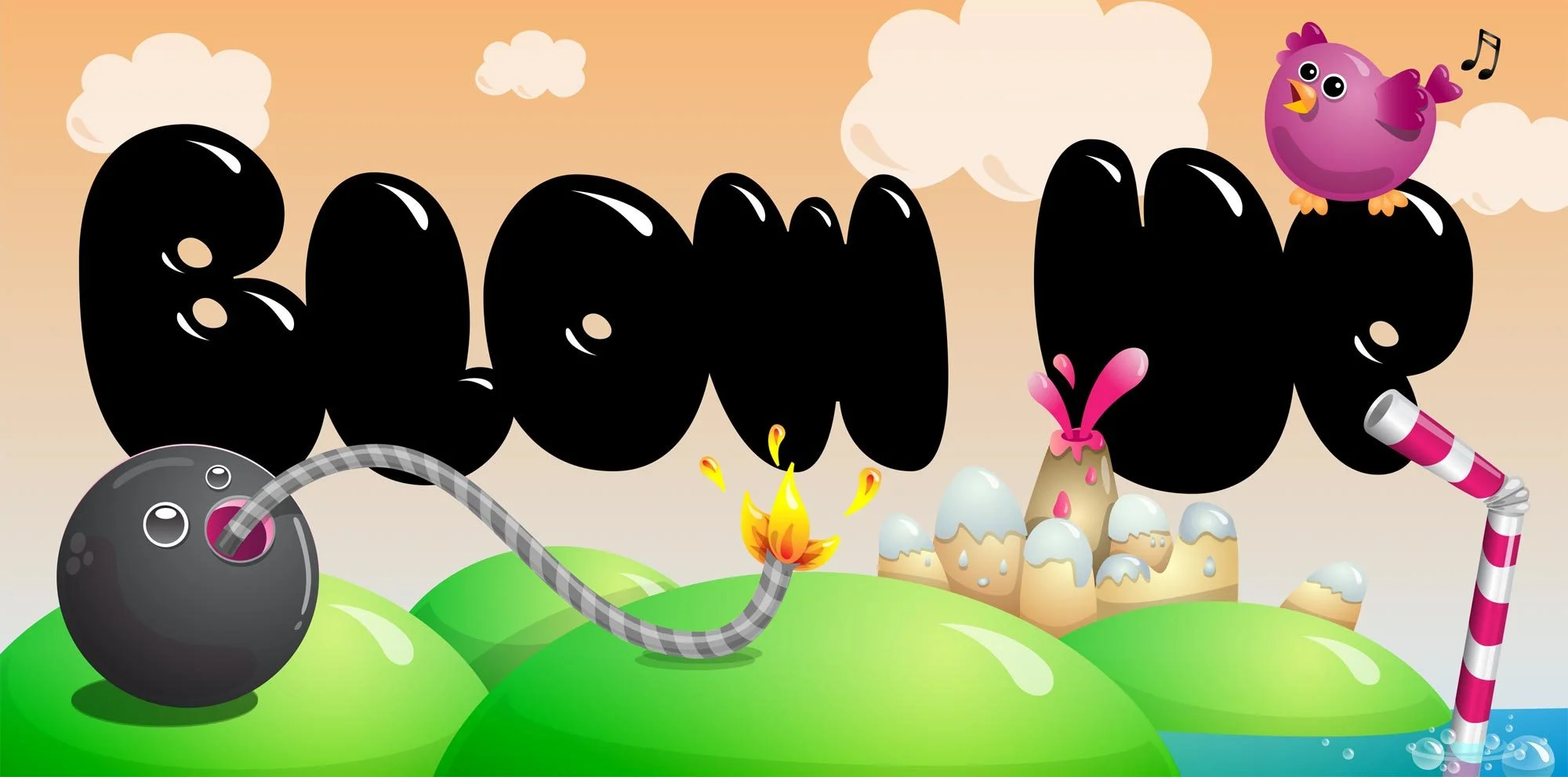
Blow Up
A display typeface from HvD Fonts designed for large-scale headline settings.
Published by HvD Fonts, Blow Up is positioned as a display face suited to headline and poster work. Page content was unavailable at time of review due to access restrictions, so specific weight and style details could not be confirmed. The name suggests an expressive, scale-sensitive design in keeping with HvD's broader display catalogue.
The name and foundry context suggest a display-oriented sans or expressive typeface intended for large-scale use, consistent with HvD Fonts' display releases.